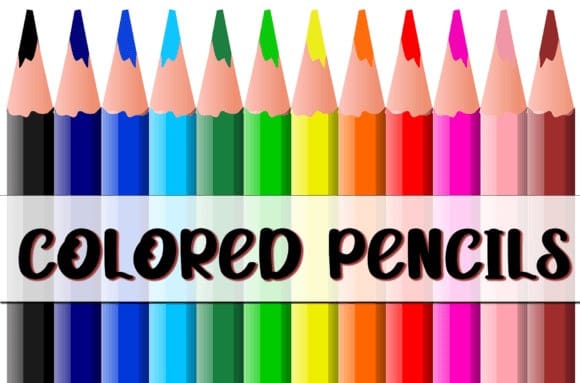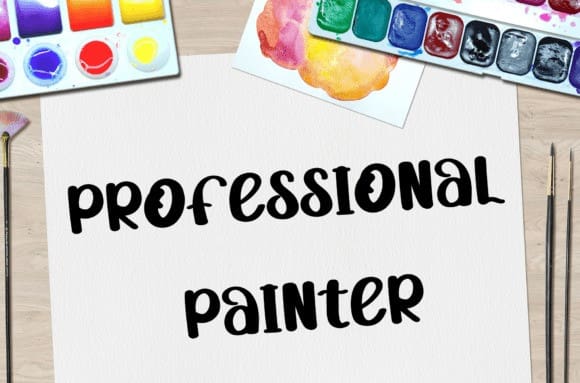
Bought Twenty Font
Bought Twenty Font, is a friendly handwritten font, carefully designed to become a true favorite. This font will be a great addition to your font library, as it will make all your creative projects come alive!